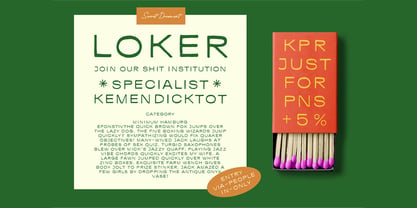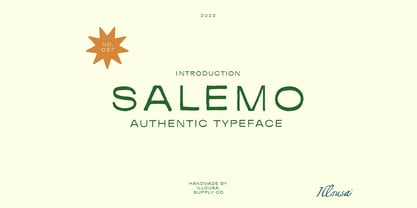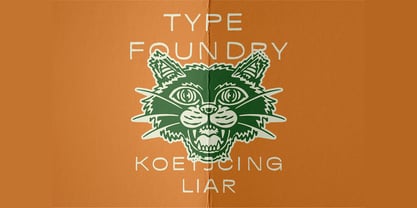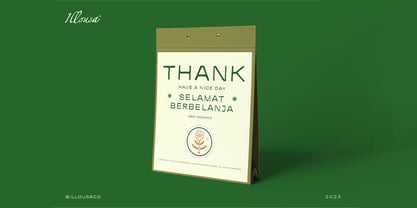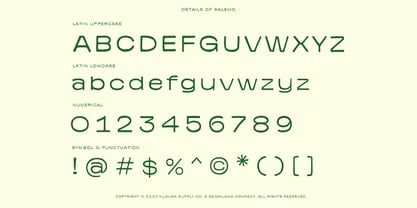
SCC Salemo
by Illousa Supply Co
The SCC Salemo Font Family was designed by Ilham Afrora and published by Illousa Supply Co. SCC Salemo contains 1 styles. More about this family
Salemo is a vintage print-inspired typeface with a wider, more classic form rooted in the Afrora style. Featuring a minimalist yet elegant design, it’s perfect for a wide range of creative uses including branding, websites, posters, magazines, and editorial layouts. Salemo includes uppercase, lowercase, numerals, and essential punctuation, offering both style and functionality. Its clean lines and timeless appeal make it a versatile choice for designers seeking a balance between classic charm and modern simplicity.
Designers: Ilham Afrora
Foundry: Illousa Supply Co